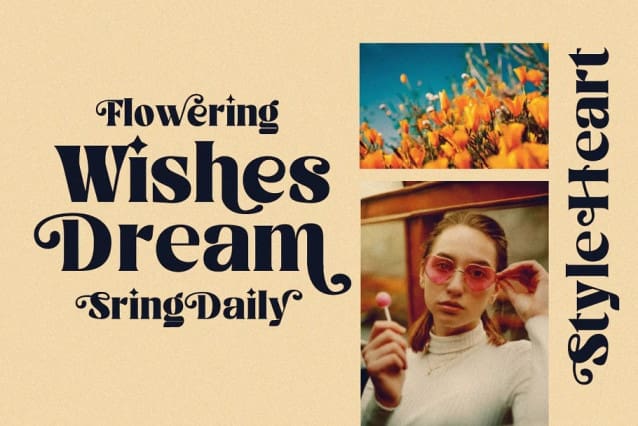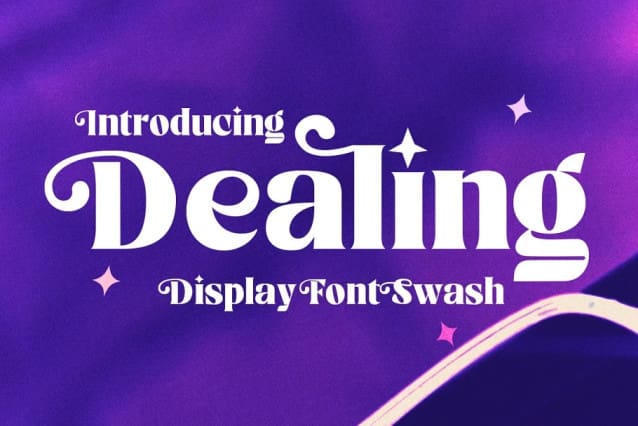
Dealing Font
Dealing Font is a classy, modern serif typeface. A beautiful bold serif designed specifically for display. Inspired by modern fashion and classic typography, this font features hundreds of alternative characters and ligatures.
The Dealing typeface represents luxury, elegance, glamour, fashion, and wealth. This font works perfectly for logotypes, invitations, cards, magazines, clothing, fashion, lifestyle, posters, social media kits and more!